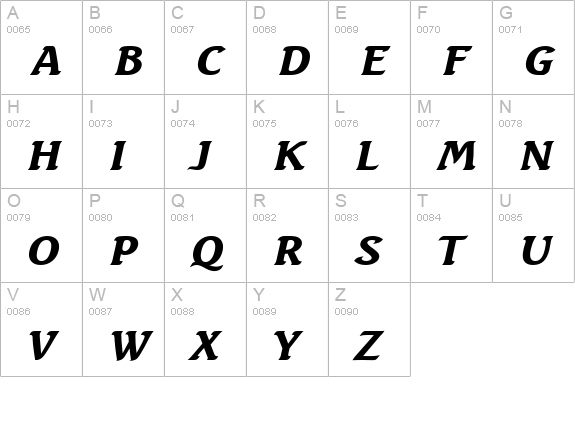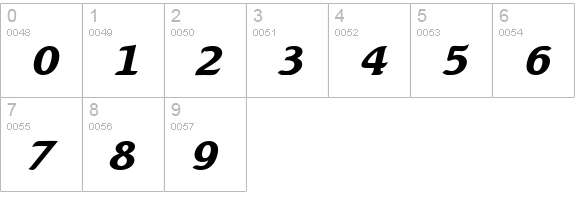
Beach Wide Bold Italic Font Details
Beach Wide Bold Italic is a strong, high-contrast, extended-width, italic variant in the Beach typeface family \xE2\x80\x94 well suited to headlines, attention-grabbing titles, and strong calls-to-action.
Introducing Beach Wide Bold Italic font - a stunning display typeface that effortlessly combines elegance with a touch of playfulness. This unique font is perfect for creating eye-catching designs that demand attention. With its bold and italic style, Beach Wide exudes a sense of confidence and sophistication. What sets Beach Wide Bold Italic font apart is its versatility - whether you're designing a poster, logo, or branding materials, this font will make your text pop and stand out. The wide letterforms and bold strokes give your designs a modern and dynamic look, while the italicized angle adds a touch of flair and personality. And the best part? Beach Wide Bold Italic font is available for free download at FontsMarket.com. So go ahead and elevate your designs with this stylish and impactful typeface today!